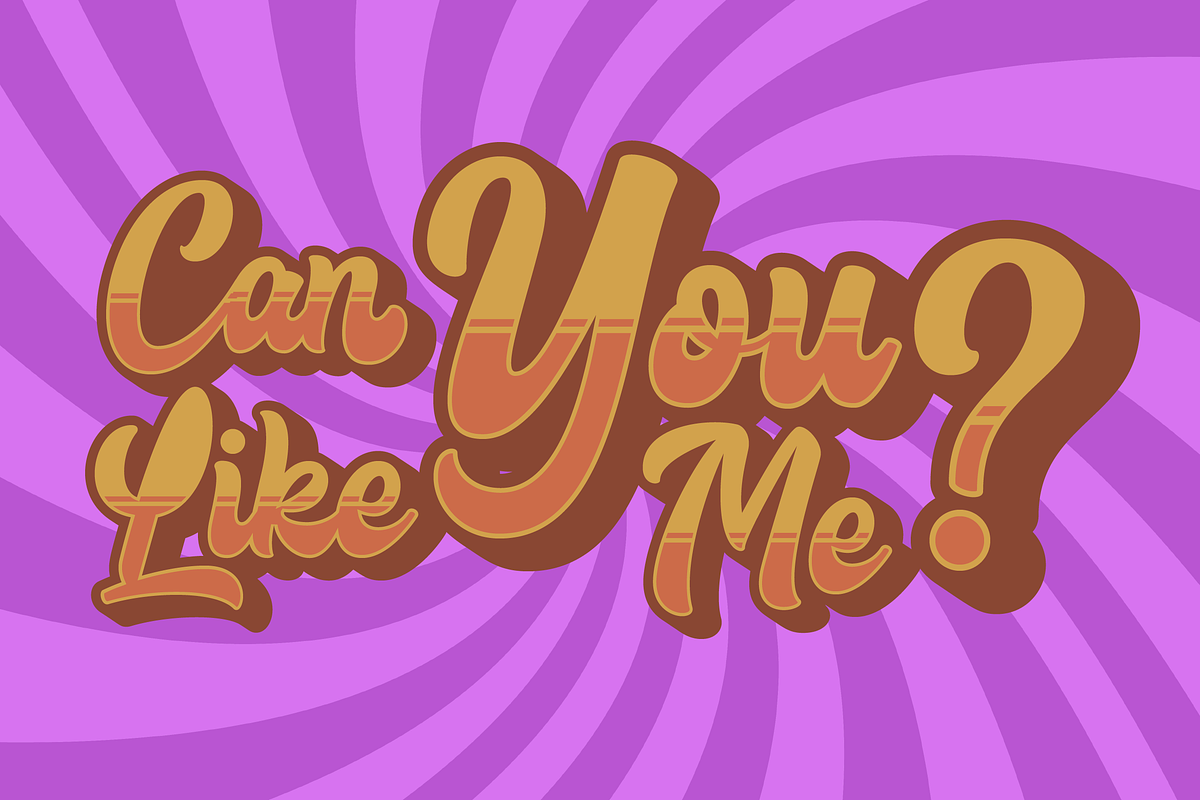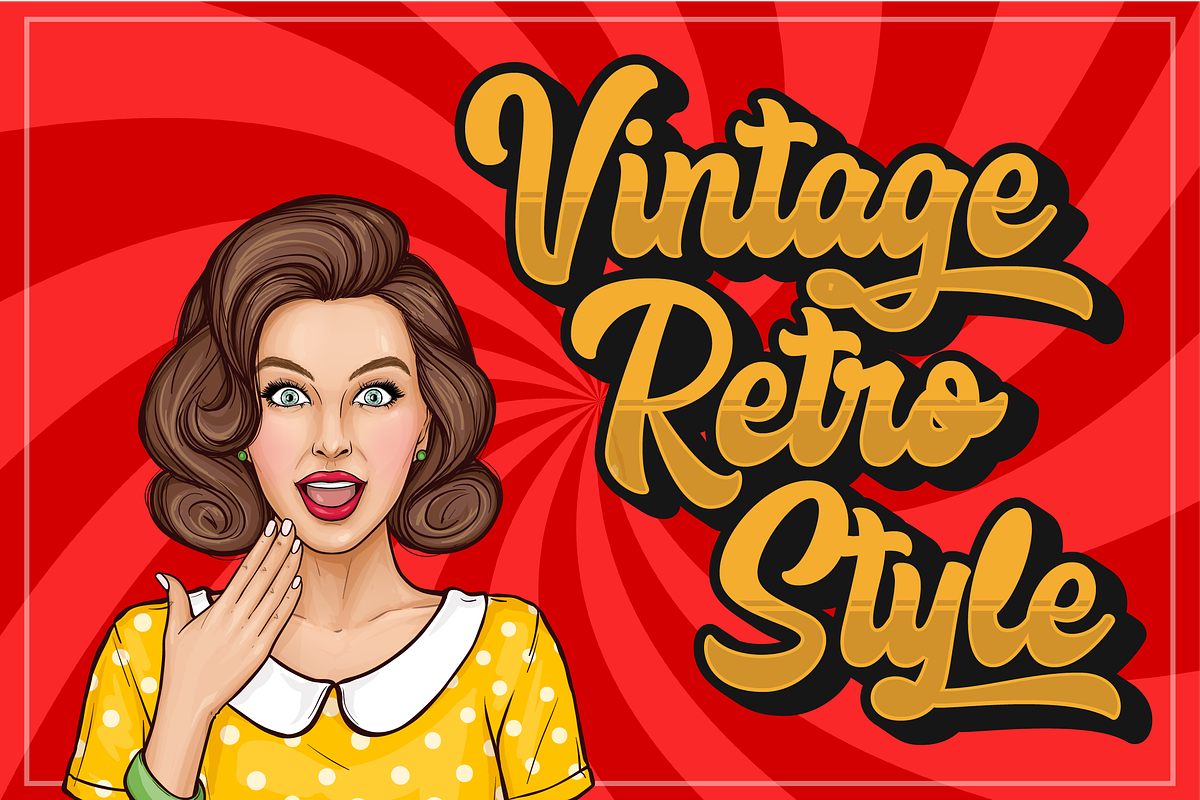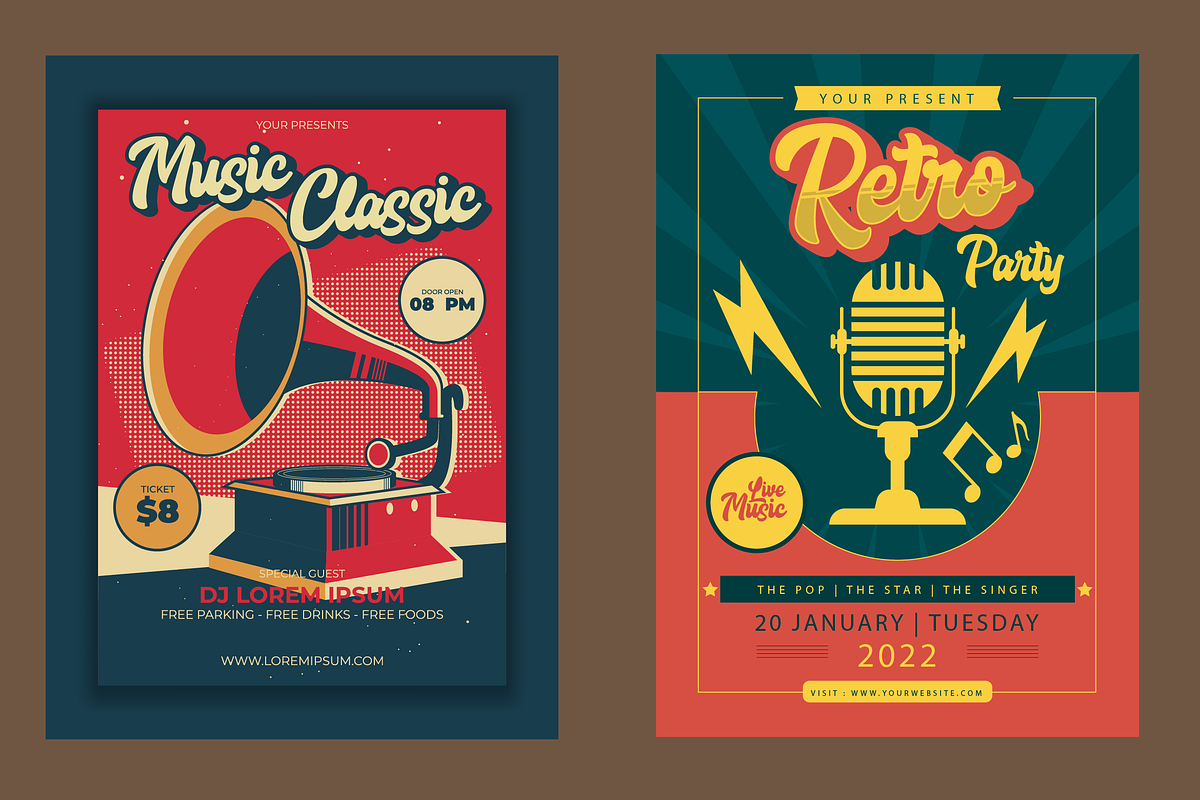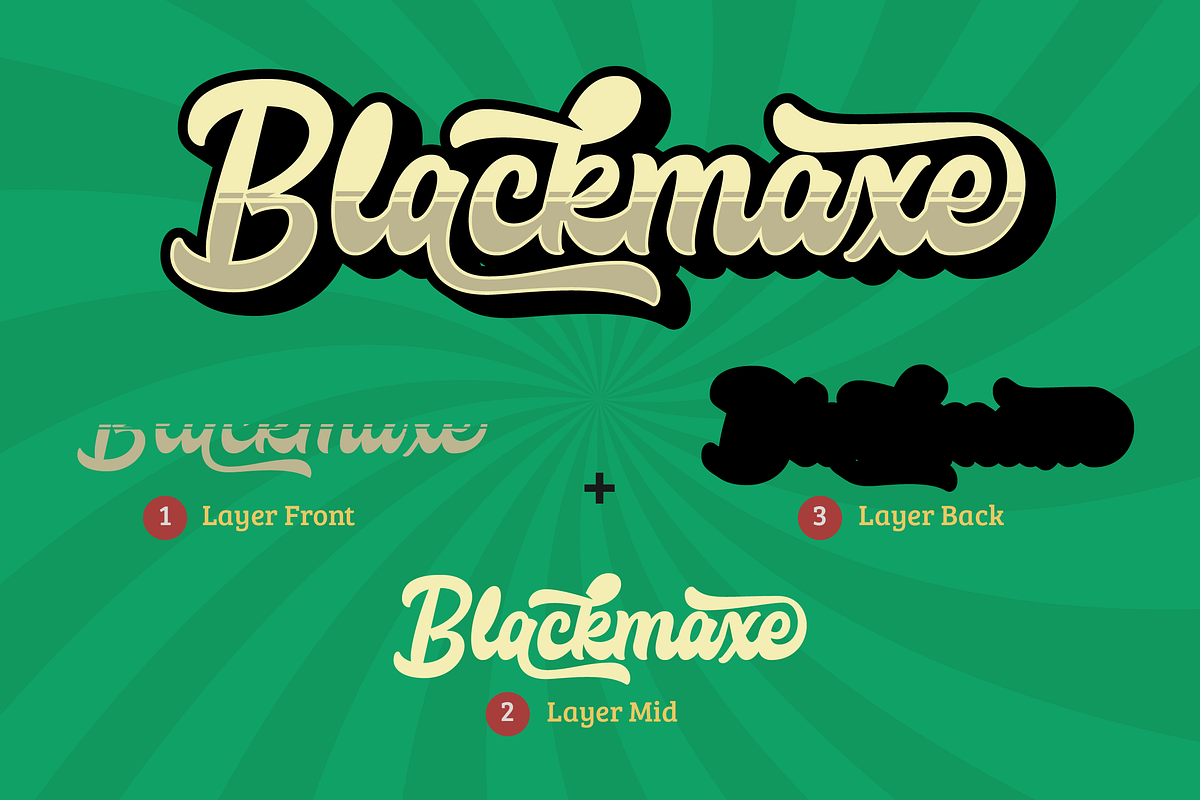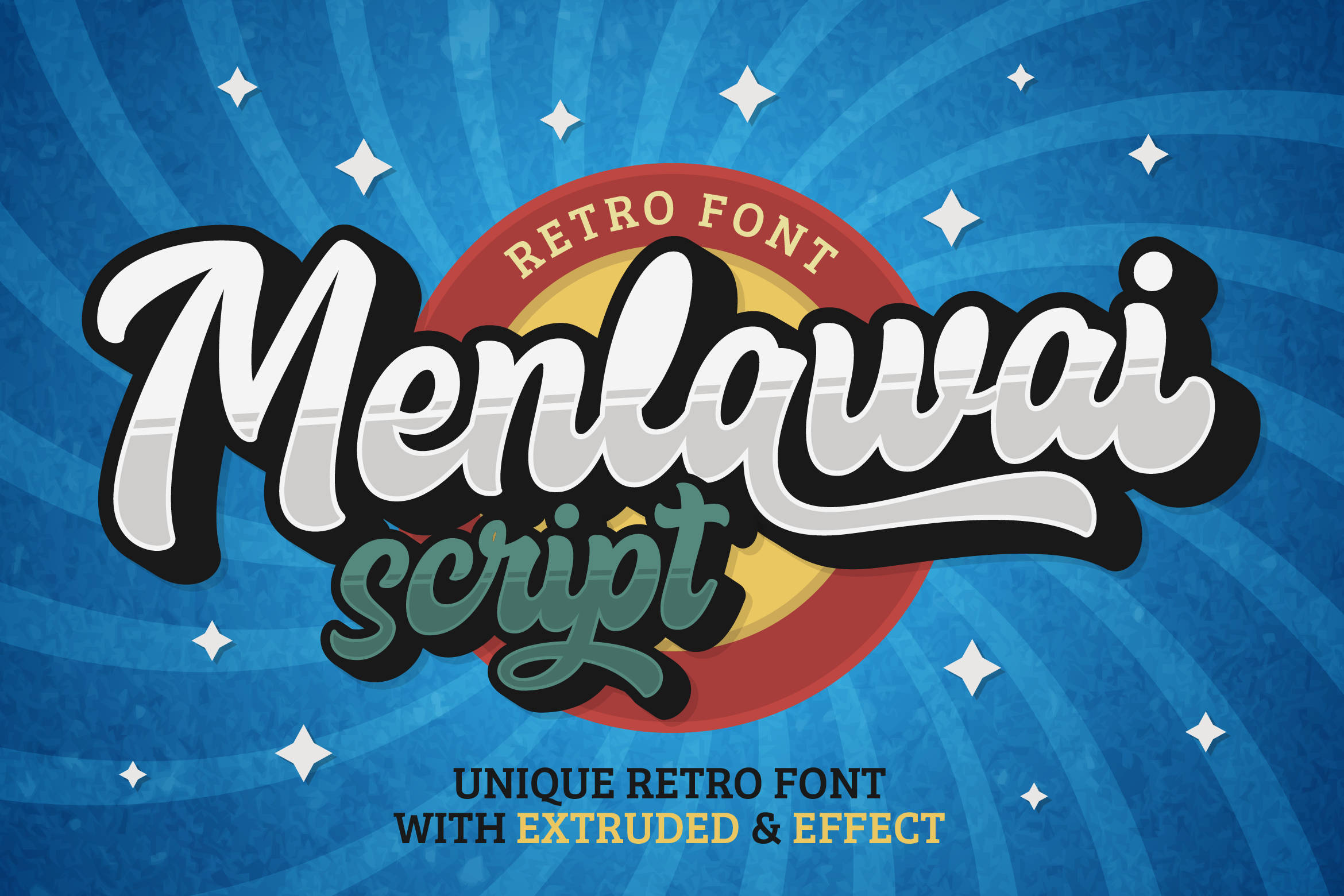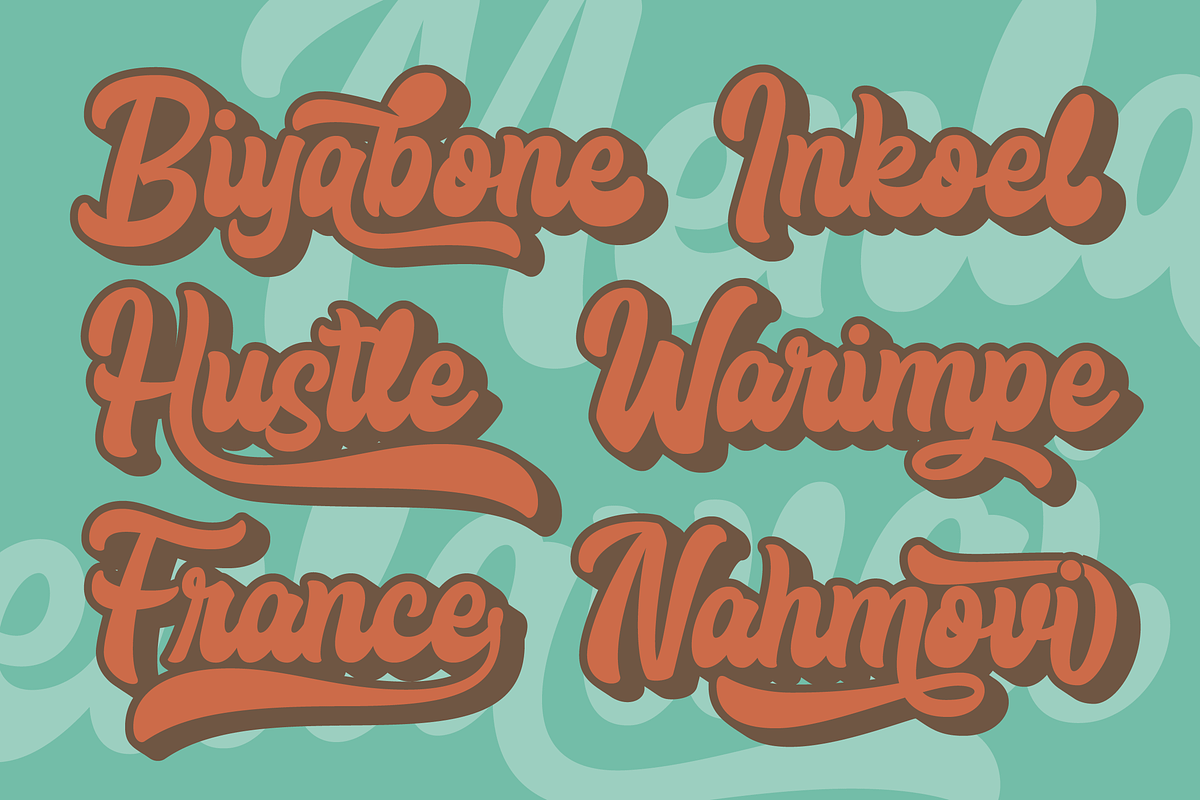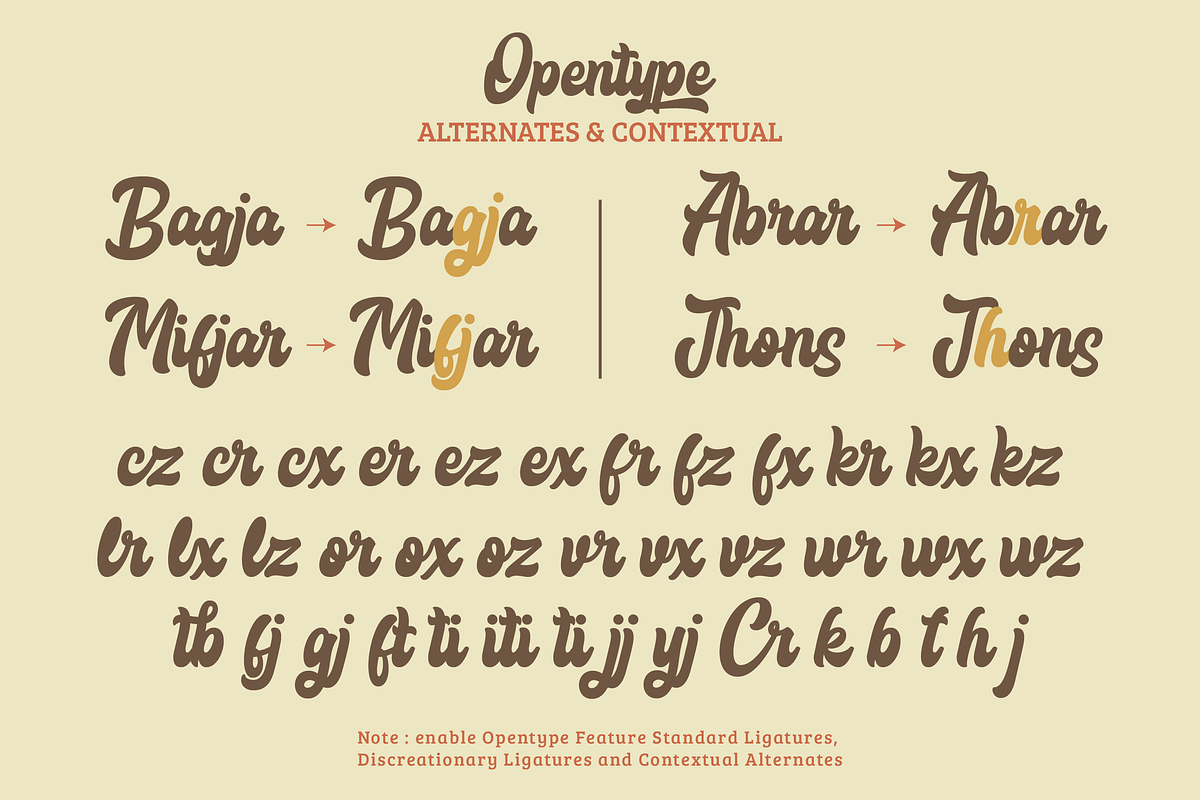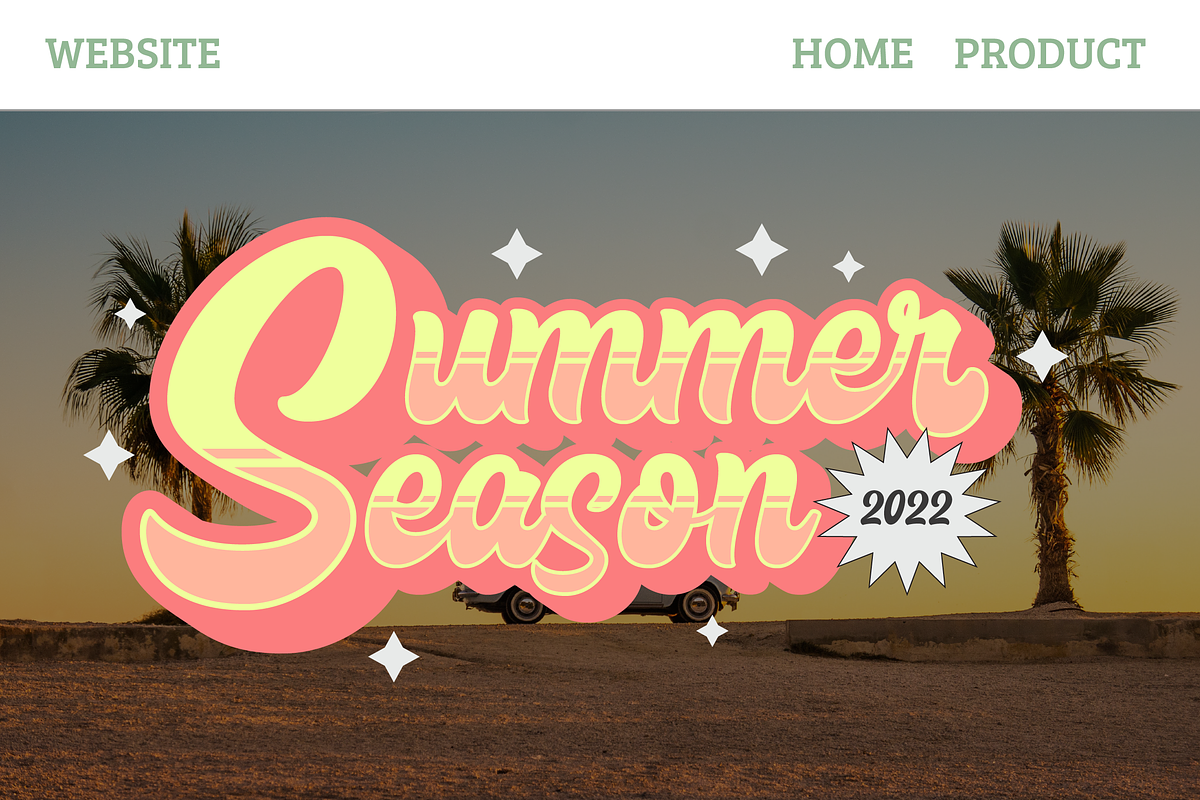
Menlawai - Retro Font with Extrude
Menlawai is a gorgeous and bold handwritten font, crafted to give your headlines and logotype projects a retro touch. This font reads as strong, confident, and dynamic and can add tons of nostalgic character to your designs. Menlawai is PUA encoded which means you can access all glyphs and swashes with ease!